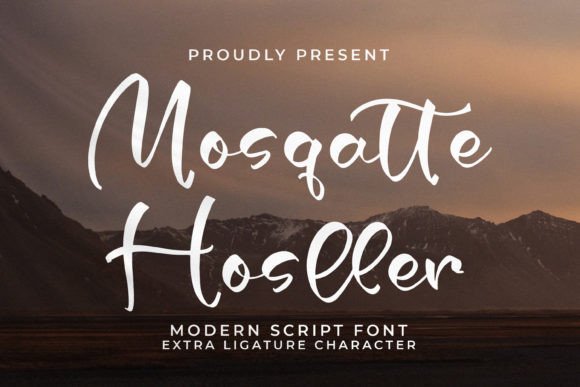
Prepare to be spellbound by Mosqatte Hosller, the captivating script font that will leave you breathless with its undeniable charm and elegance. Its meticulously crafted characters dance across the page like delicate brushstrokes, evoking a sense of timeless beauty and sophistication. Immerse yourself in the world of Mosqatte Hosller, where every letter tells a story, and every word becomes a masterpiece.
With its inherent versatility, Mosqatte Hosller effortlessly adapts to a myriad of creative endeavors. Whether you're crafting elegant wedding invitations that exude romance, heartfelt thank-you cards that convey gratitude, or inspiring quotes that ignite the soul, Mosqatte Hosller rises to the occasion, leaving an indelible mark on every design it graces.
Step into the realm of logo design and business cards, where Mosqatte Hosller's distinctive personality shines through. Its graceful lines and impeccable style command attention, ensuring that your brand identity leaves a lasting impression on clients and customers alike. As a font meticulously designed to excel in tiny text, Mosqatte Hosller excels in situations where space is limited, conveying your message with unwavering clarity and impact.
But Mosqatte Hosller's allure extends far beyond its practical applications. It's a font that speaks to the heart, evoking emotions and creating a profound connection with your audience. Its delicate curves and flowing lines mimic the fluidity of human handwriting, lending an air of authenticity and intimacy to your designs.
With Mosqatte Hosller, you unlock the gateway to a creative universe where your imagination knows no bounds. Its boundless versatility empowers you to weave enchanting tales through the written word, craft designs that captivate the senses, and leave an enduring legacy that transcends time. Seize the opportunity to own this remarkable font today and embark on a creative journey like no other.